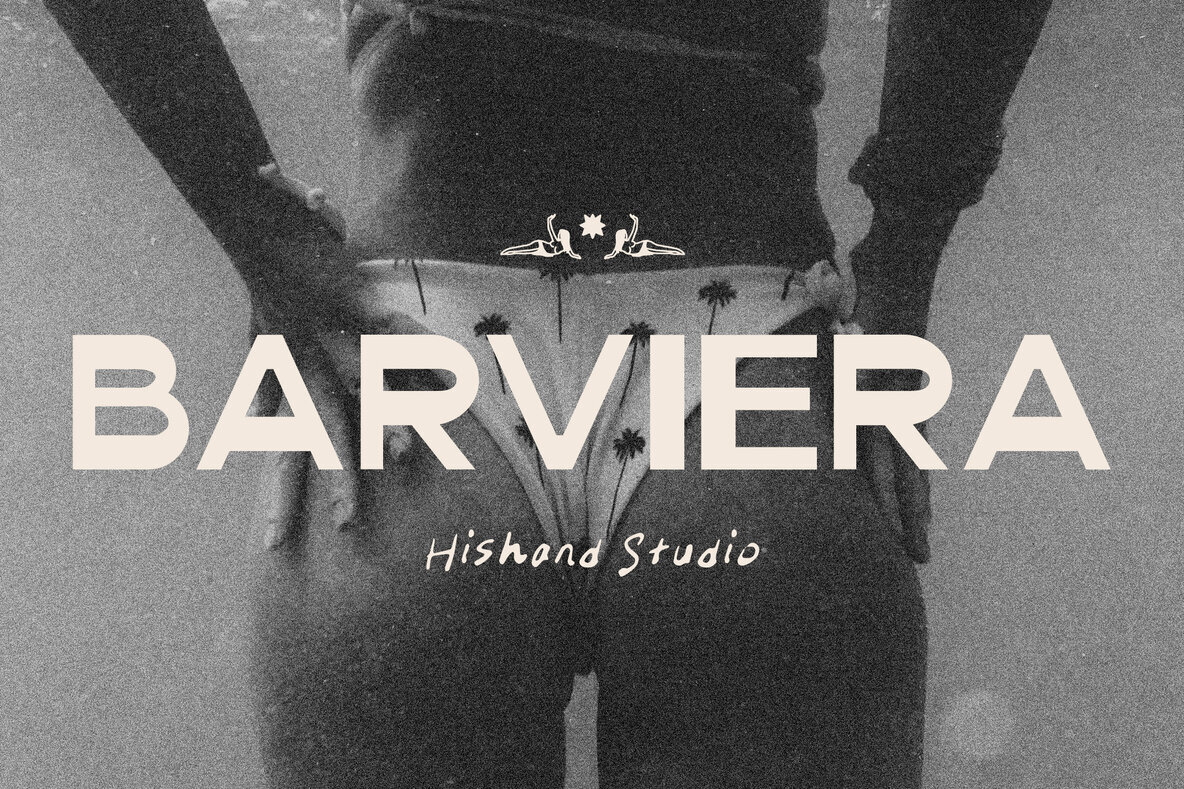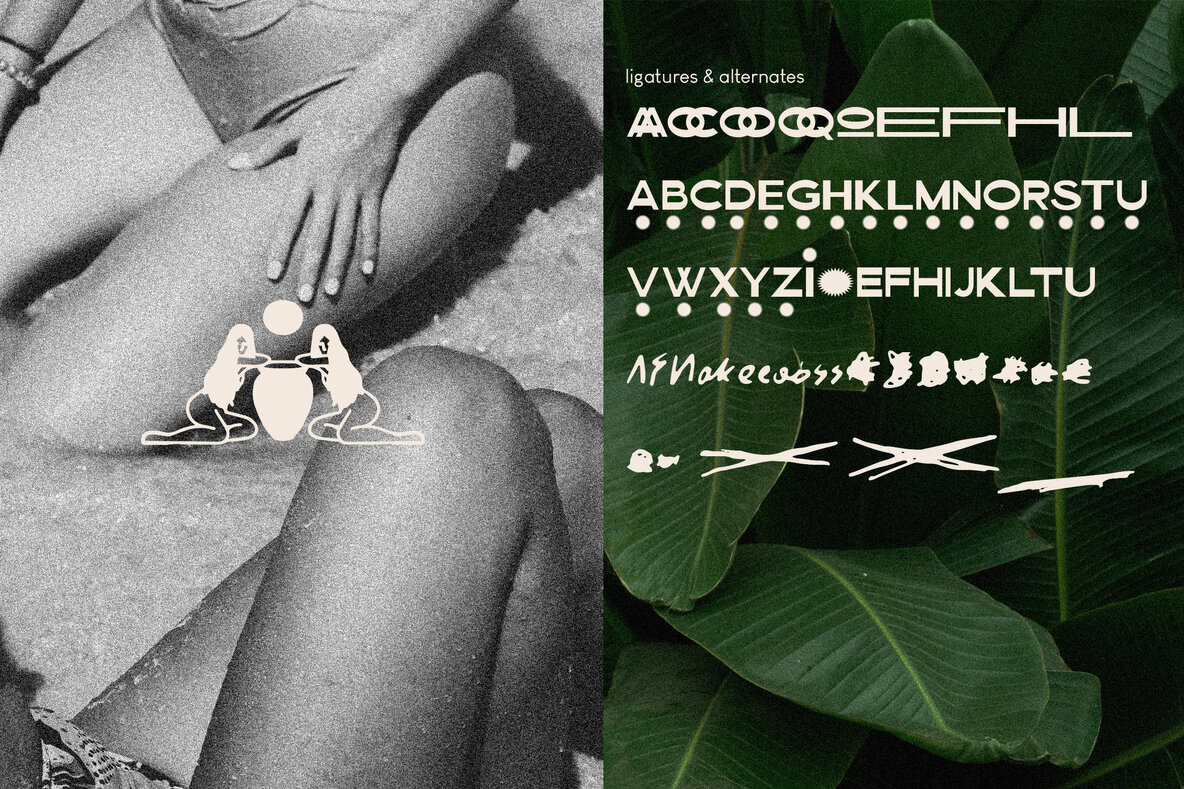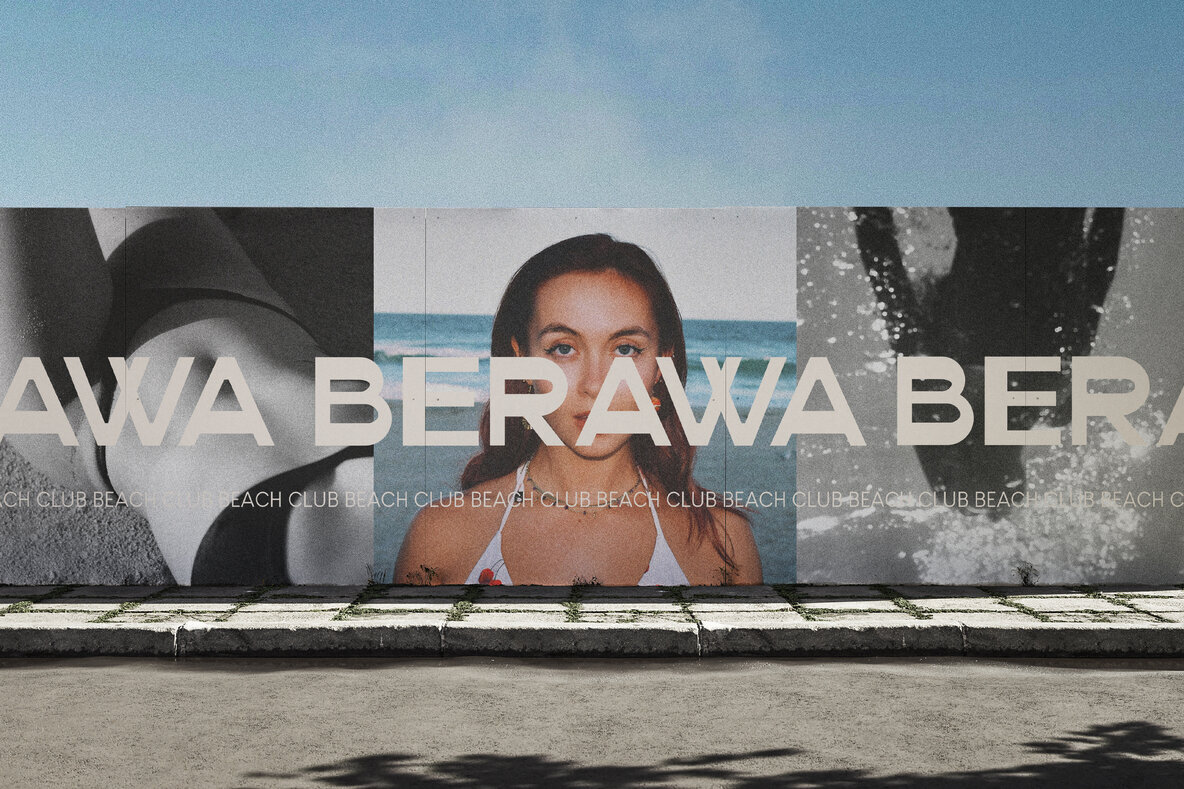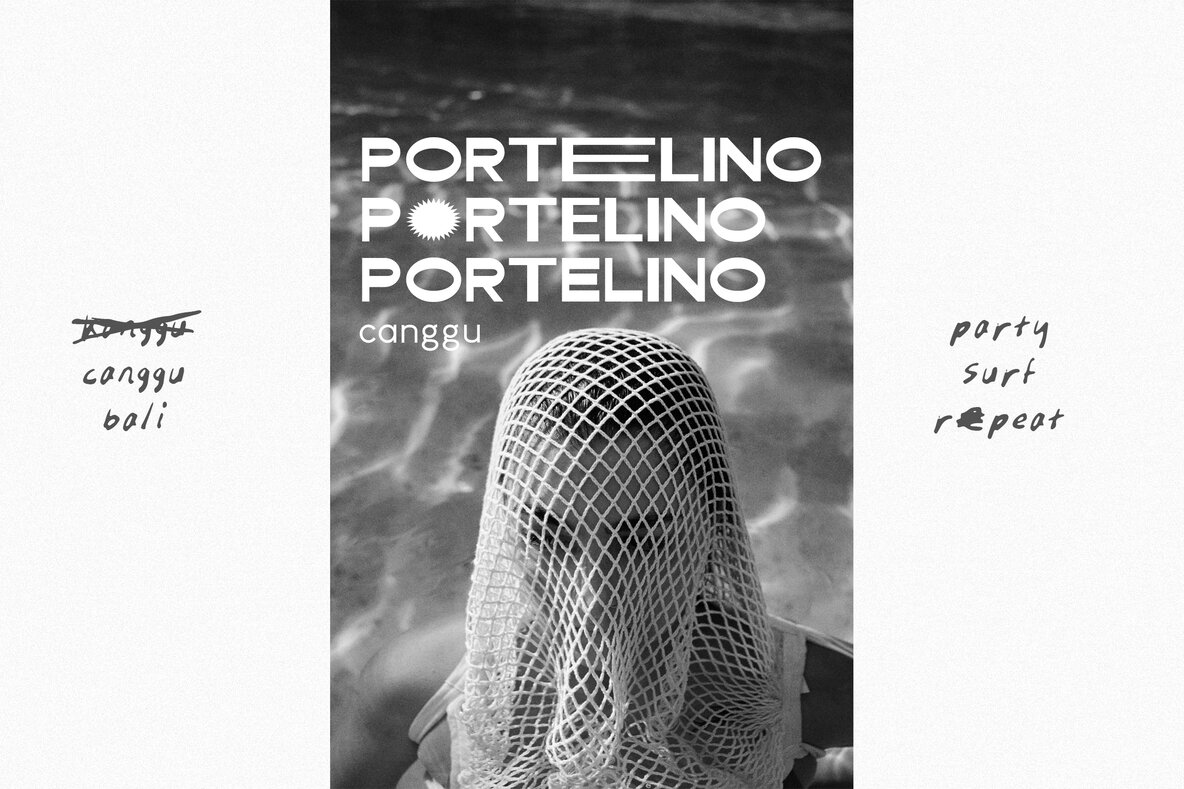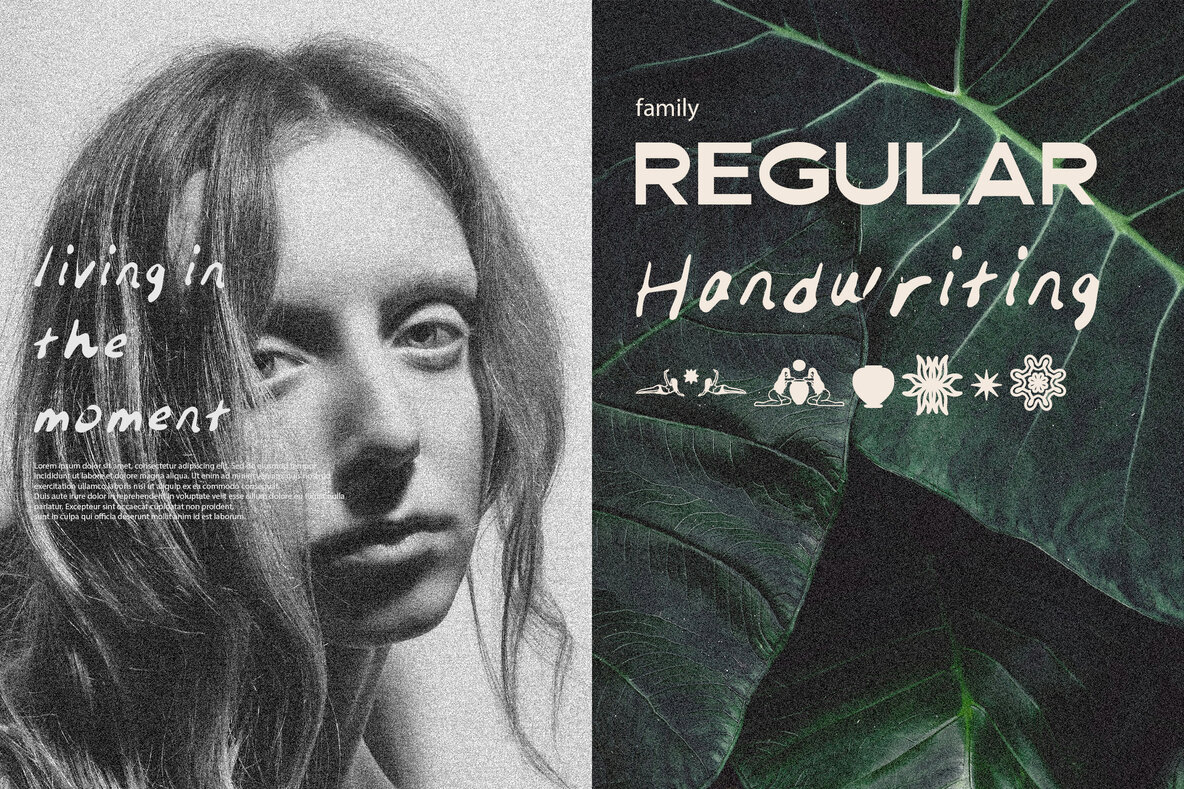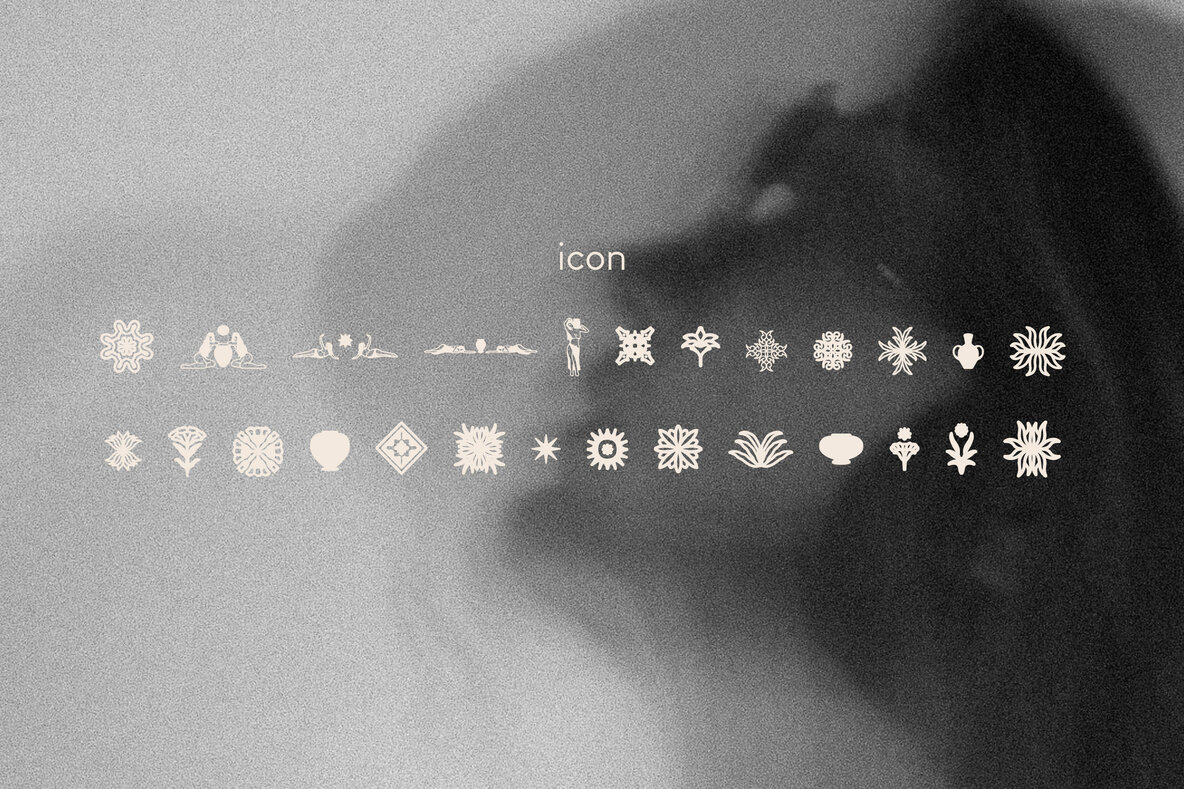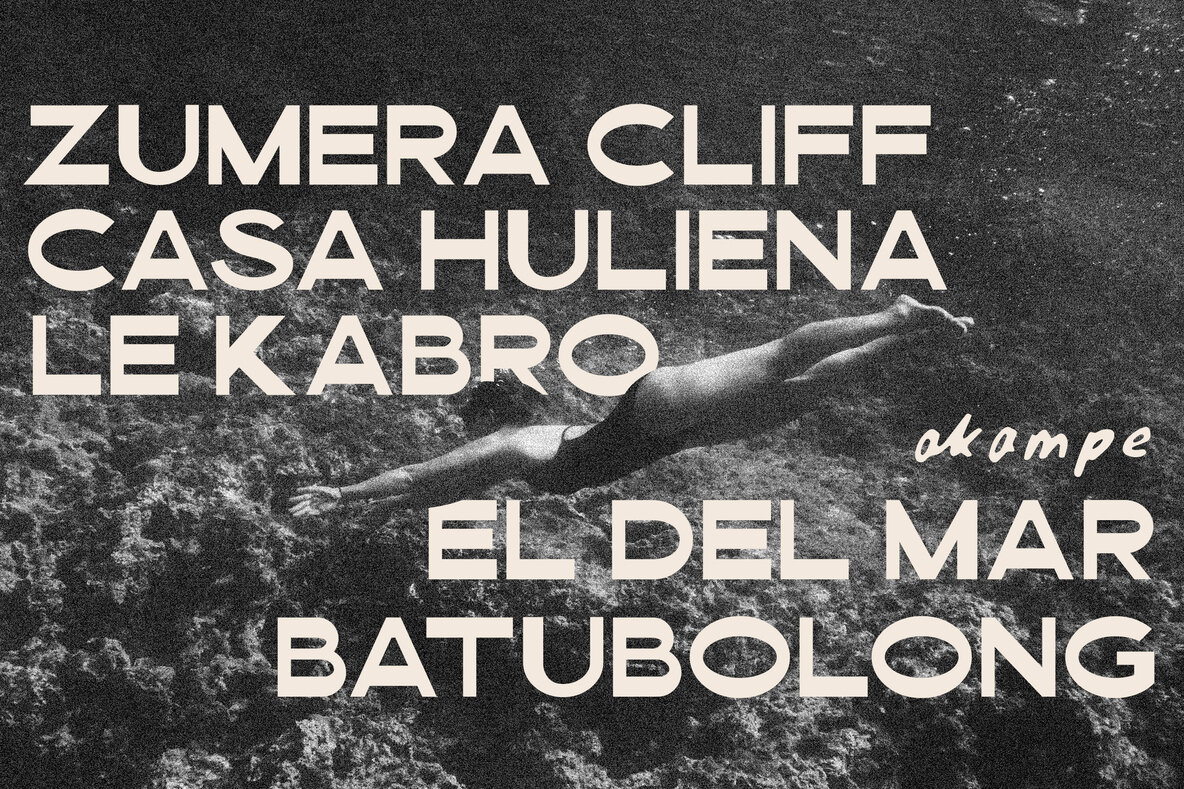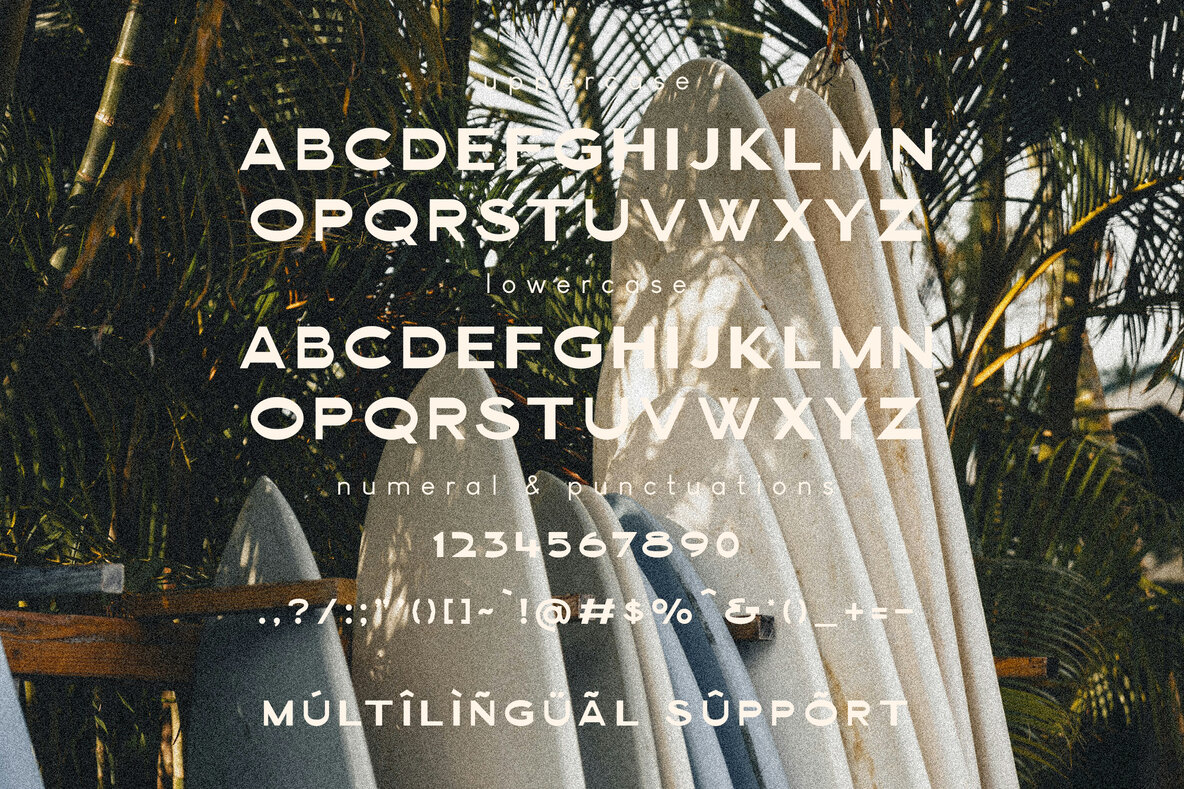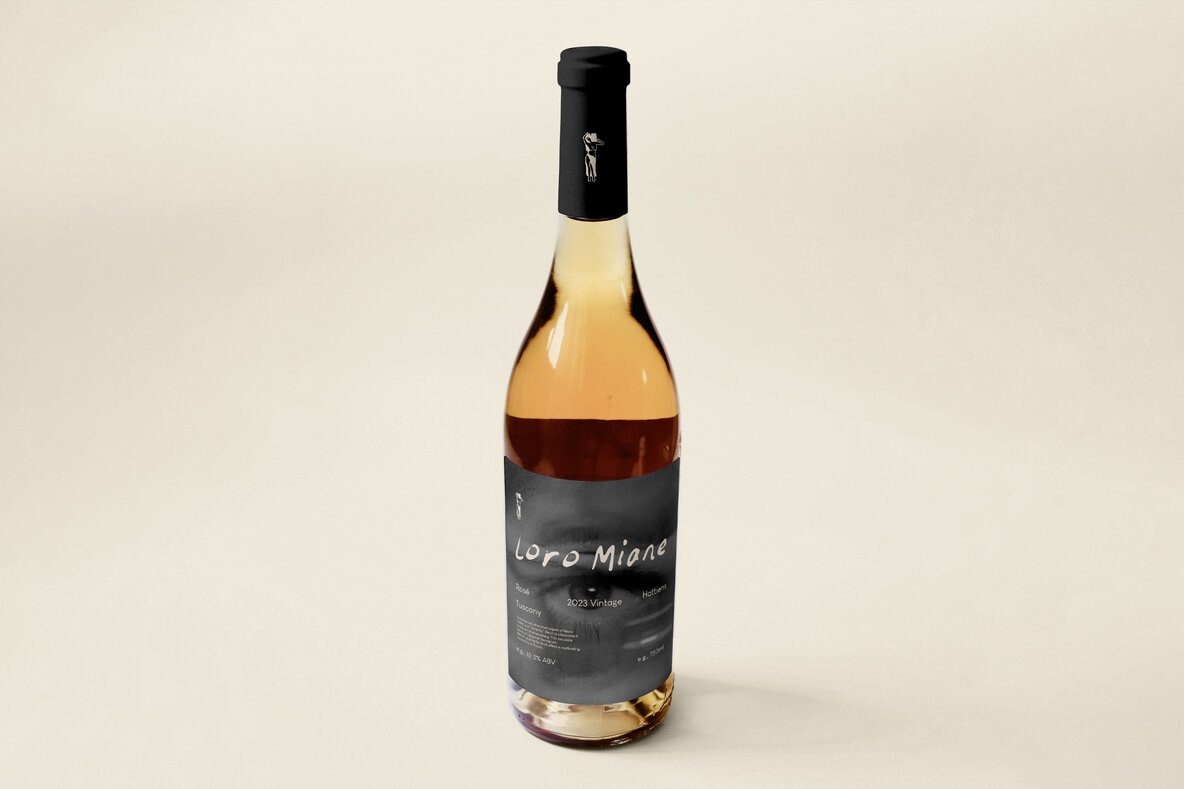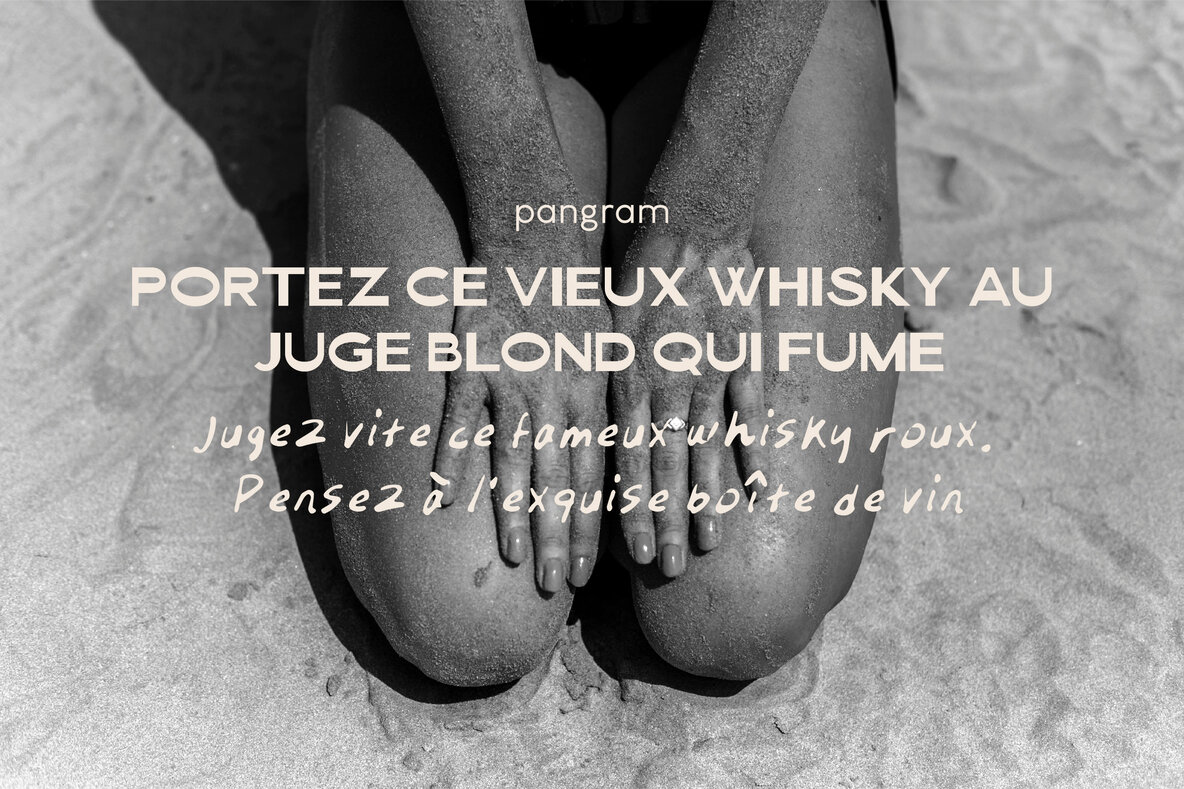
Barviera Font
Barviera
Barviera Handwriting
Barviera Icon
Meet Barviera, the display sans-serif font that embodies boldness and modern aesthetics. With its clean shapes and playful balance, Barviera infuses a fresh creative energy into every word, ensuring they stand out. Ideal for logos, posters, and branding, this font encapsulates confidence and style, striking a harmonious balance between professionalism and fun. Barviera's smooth curves and sharp edges create a visual rhythm that captivates audiences with subtlety and sophistication. Whether developing a vivid startup identity or curating a stylish lifestyle brand, this sans-serif typeface imparts a cool, modern edge that perfectly complements your design. Features:Barviera: Bold Display Sans-Serif with Modern Flair